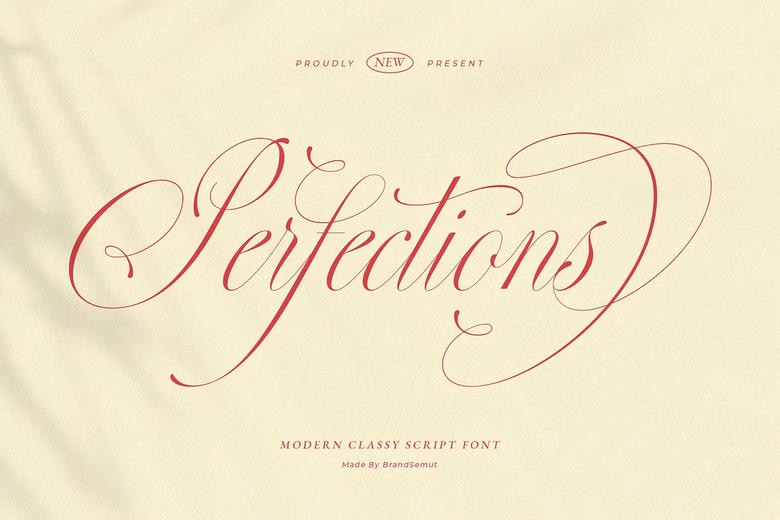
Perfections Font
Perfections is a contemporary elegant script font that adds luxury, beauty and elegance to all your design projects. With round shapes, fluid swashes, and thin calligraphy elements, this font is ideal for designers who want to produce high-end, elegant, and classic designs.
Blending the elegance of traditional calligraphy with a contemporary edge, Perfections presents a versatile style that works flawlessly across print and digital designs. Each letter is meticulously crafted, striking a harmonious balance between artistic allure and readability, making it perfect for both professional branding and personal creative endeavors.
Perfections Calligraphy Script Font